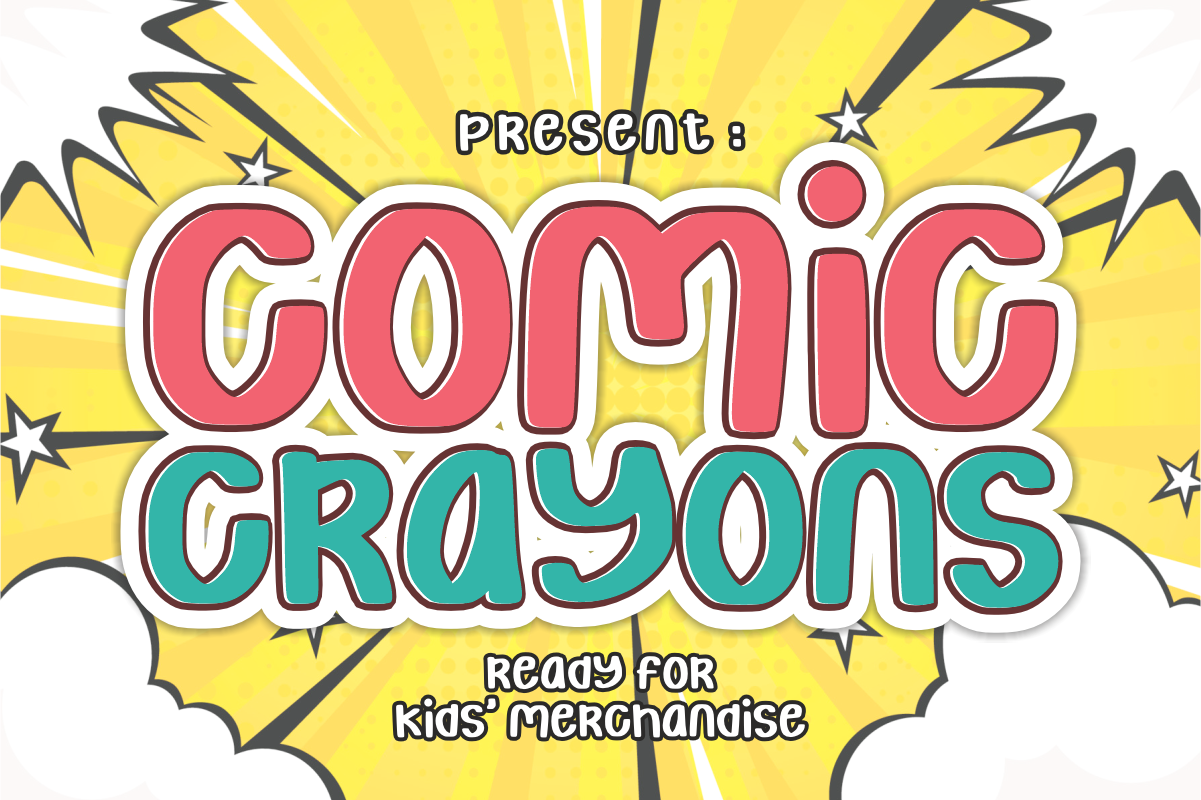
Comic Crayons - Comic Display Font
Comic Crayons - Playful Comic Display Font
Unleash action-packed fun with Comic Crayons! This bold, bubbly display font features an energetic, hand-drawn style inspired by classic comic books and playful cartoon aesthetics. As highlighted in our preview, it is completely Ready for Kids' Merchandise and engineered to give your headlines an instant, high-impact punch.
Whether you are developing vibrant product packaging, creating animated social media graphics, or designing a playful brand identity, Comic Crayons balances casual charm with professional visual appeal. It is highly legible, versatile, and fully optimized for premium print and digital layouts.
All-Caps Character Set (Bold, playful uppercase letters with a comic book feel)
Numbers & Basic Punctuation (Essential, simple symbols included)
Kids' Merchandise & Vibrant Apparel Branding 👕
Comic Books, Graphic Novels, & Youth Publishing 📚
Children's Product Packaging & Toy Label Design 🧸
Social Media Marketing & Animated Content Creation 📱
Creative Logo Design & Fun Brand Identities 🎨